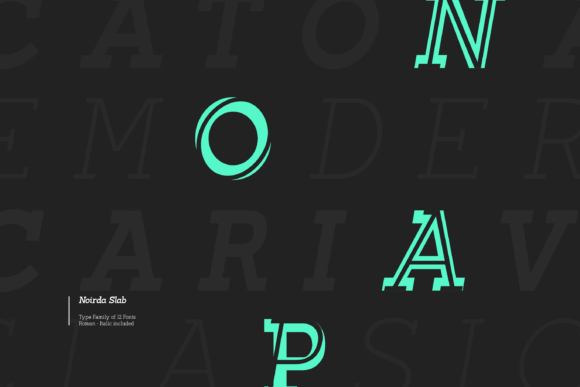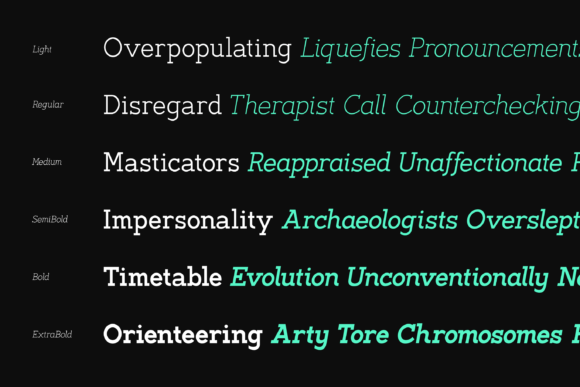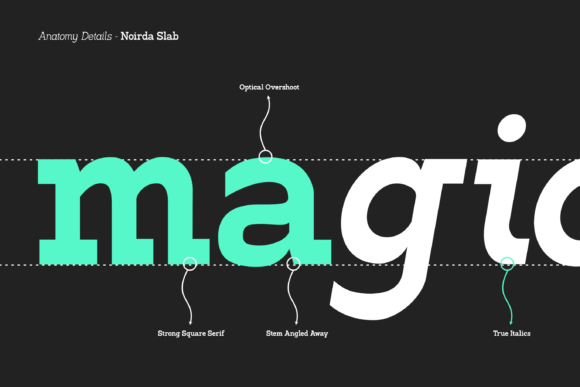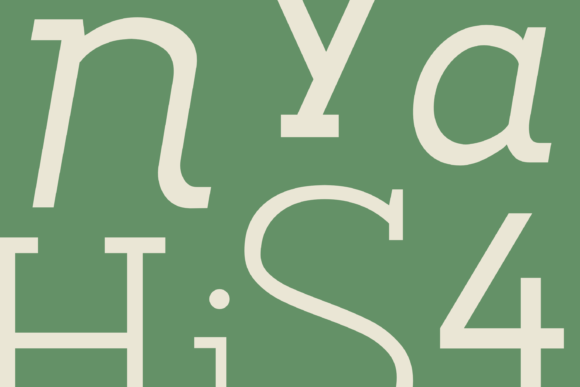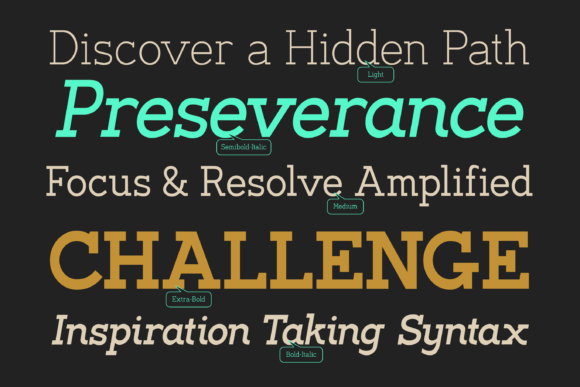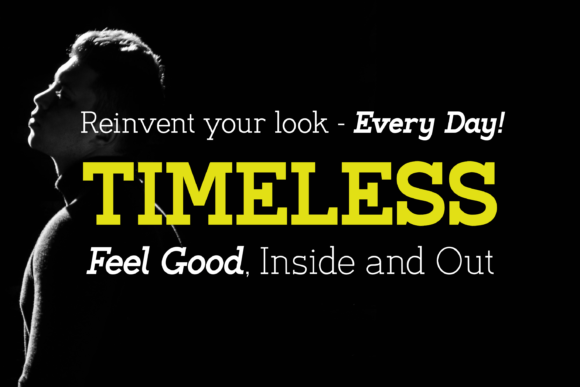
Introduction to Noirda Font
Introducing a Bold Classic with a Modern Twist Elevate your design projects with a slab serif font that embodies boldness, masculinity, and a timeless sense of classic style.
This font stands out with its robust, authoritative forms and distinctive serif strokes, creating a powerful visual impact while embracing a modern flair Its traditional slab serif roots are infused with a contemporary edge, making it a versatile choice for both vintage-inspired and modern design contexts.
Key Features of Noirda Font
Why Choose Noirda Font?
Noirda Font offers exceptional quality and versatility, making it a valuable addition to your design toolkit. Whether you’re creating for personal projects or commercial use, Noirda Font delivers professional results.